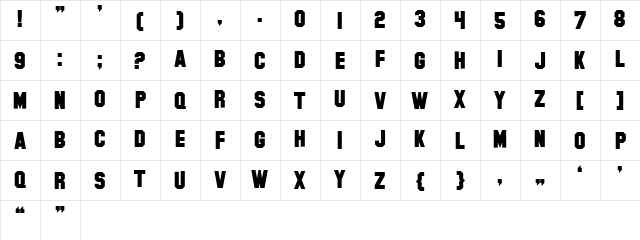
SF Hollywood Hills Bold
Complete SF Hollywood Hills Bold glyph index. Displaying only characters natively supported by SF Hollywood Hills Bold font.
Design Context for SF Hollywood Hills
SF Hollywood Hills echoes the hand-painted signage and woodblock typography of the American frontier, with a warm, rugged personality. Its bold stroke weight gives it real presence on the page.
Font Pairing: Combine SF Hollywood Hills with a simple slab or neutral sans - period-accurate companions reinforce the vintage feel without competing for attention.
Pro Tip: Use SF Hollywood Hills for short, impactful bursts of text - it shines in poster headlines and product names rather than extended copy.